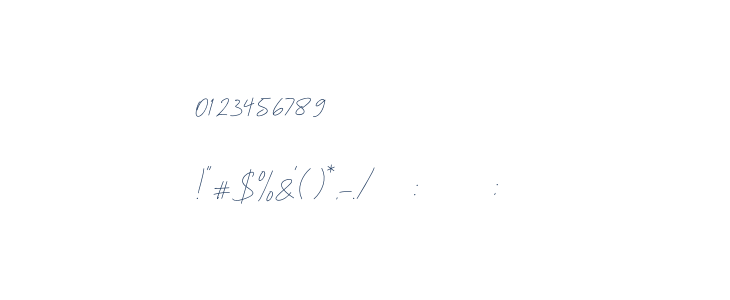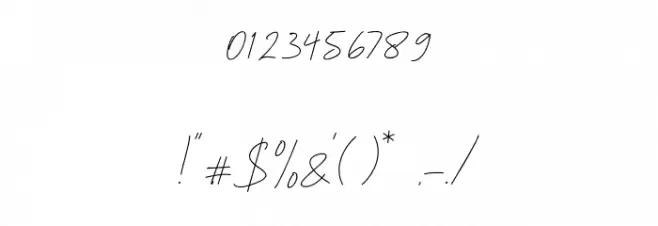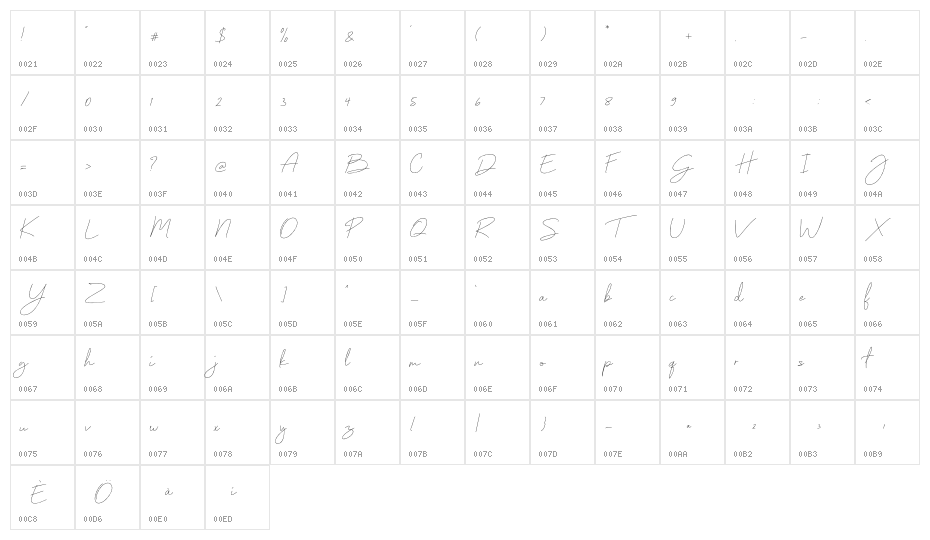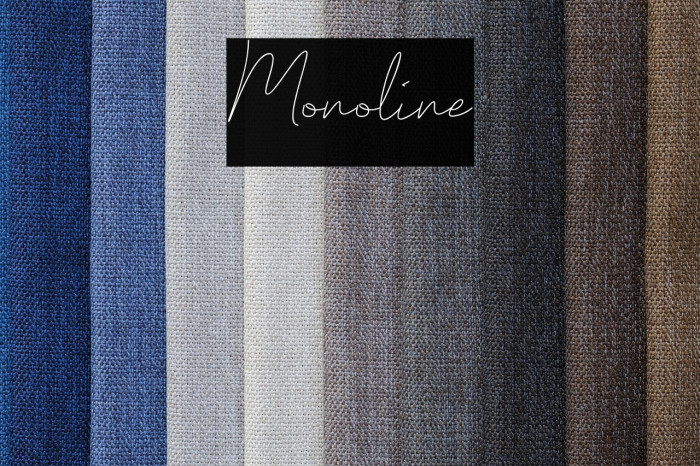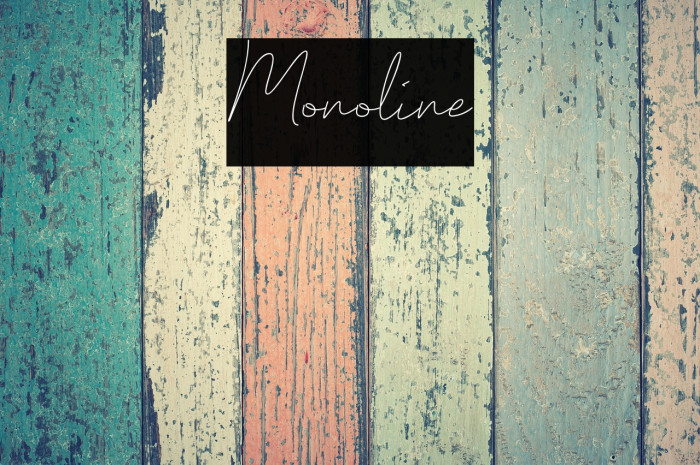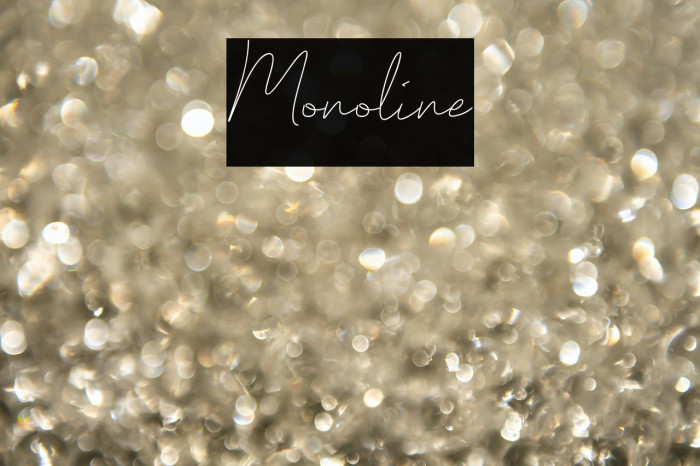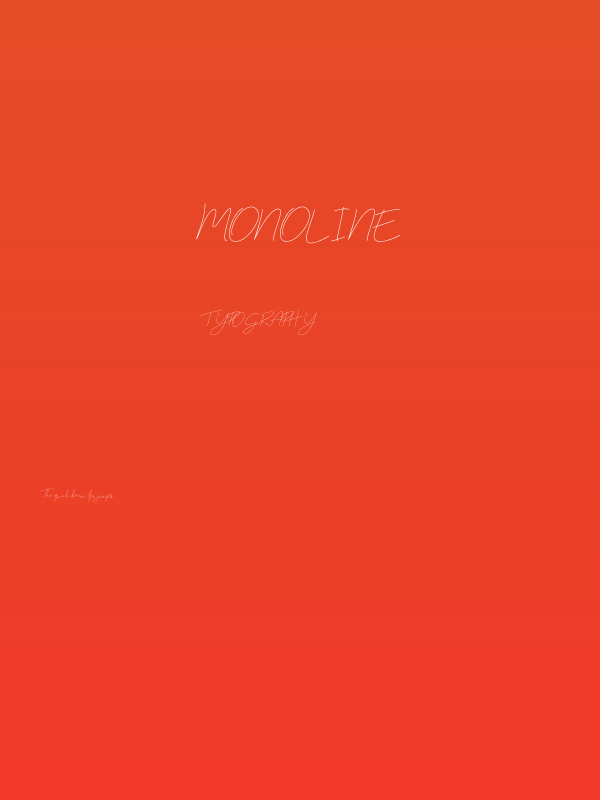
Monoline Font
Monoline Description
This font features a delicate, flowing script style that mimics elegant handwriting. The characters are connected with smooth, continuous strokes, creating a sense of fluidity and grace. The thin lines and consistent stroke width give it a refined and sophisticated appearance. The uppercase letters are slightly more structured, while the lowercase letters exhibit a more relaxed and natural flow. The numerals and special characters maintain the same elegant style, ensuring a cohesive look across all text. This font is perfect for adding a personal touch to any design, evoking a sense of elegance and charm.
An elegant, flowing script font with thin, continuous strokes from Regular fonts.
- Proposed Projects: Ideal for wedding invitations, personal branding, elegant stationery, and artistic projects.
- Overall Style: Elegant, Handwritten
- Use Case: Logos, Invitations, Personal branding